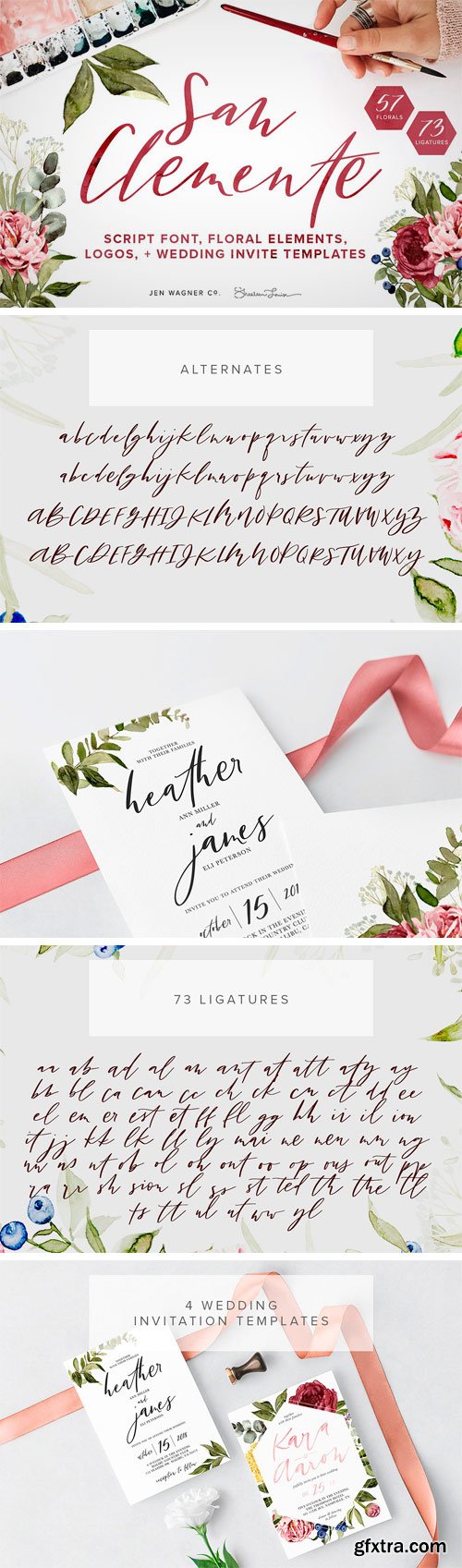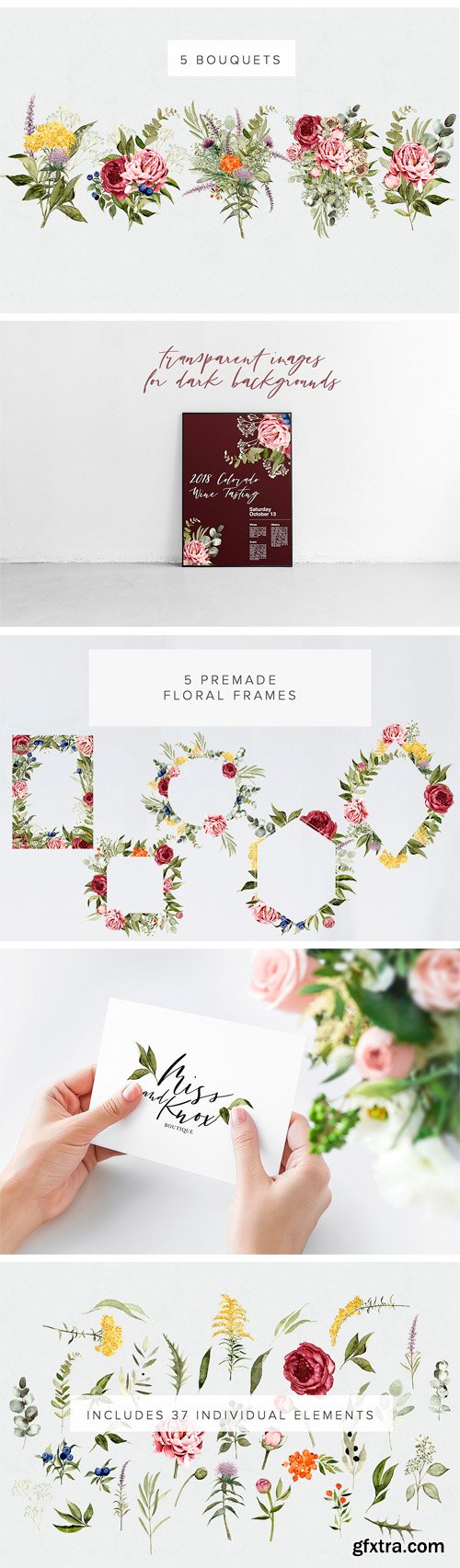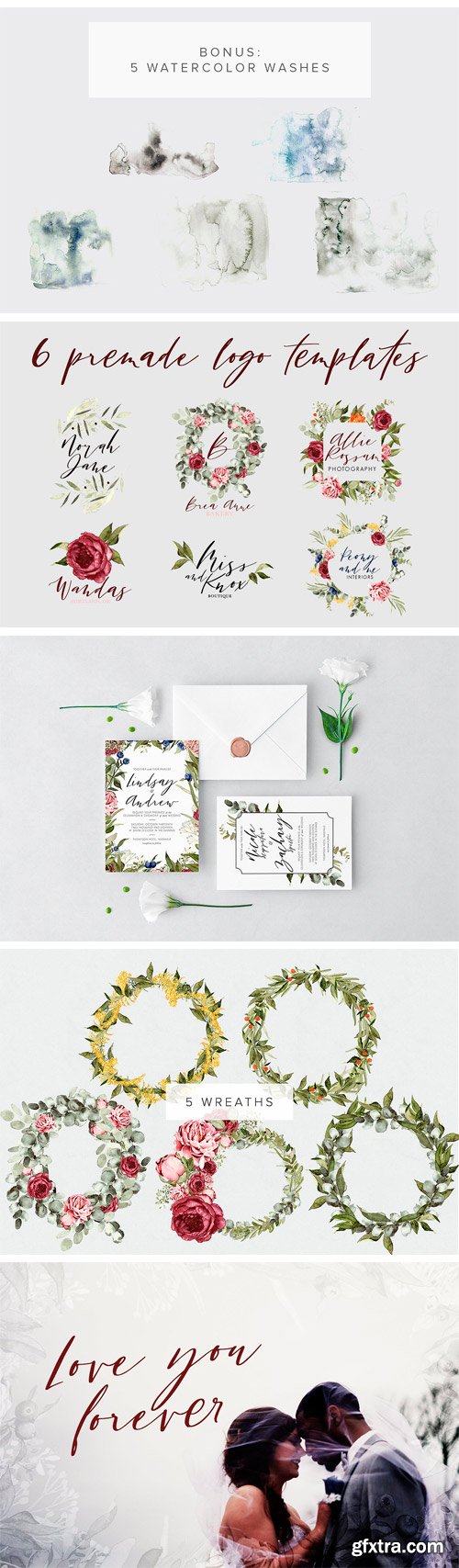
Say hello to San Clemente, the first collaboration of the year, featuring the gorgeous watercolor floral work of Shealeen Louise (www.shealeenlouise.com) and a beautiful hand-written script with tons of ligatures!
With stunning transparent background watercolors (ultra high-res) alongside the San Clemente font, this floral pack makes designing wedding essentials, logos, invitations, and more super easy! We''ve also included 4 pre-made wedding invitation templates as well as 6 logo templates to help make your design process simple. Check below to see what else is included! This pack includes: • San Clemente Script (uppercase + lowercase, 73 ligatures, alternates, foreign language support, numbers + punctuation) • 5 Bouquets • 5 Wreaths • 5 Frames • 4 Wedding Invitation Templates (Photoshop format) • PNG versions of the background for each invitation • 6 Logo Templates (Photoshop + Illustrator formats) • 37 Individual Elements • BONUS: 5 Watercolor Textures (not transparent; use blending modes in Photoshop to blend into backgrounds, and layer adjustments to change color - video tutorials coming soon!).